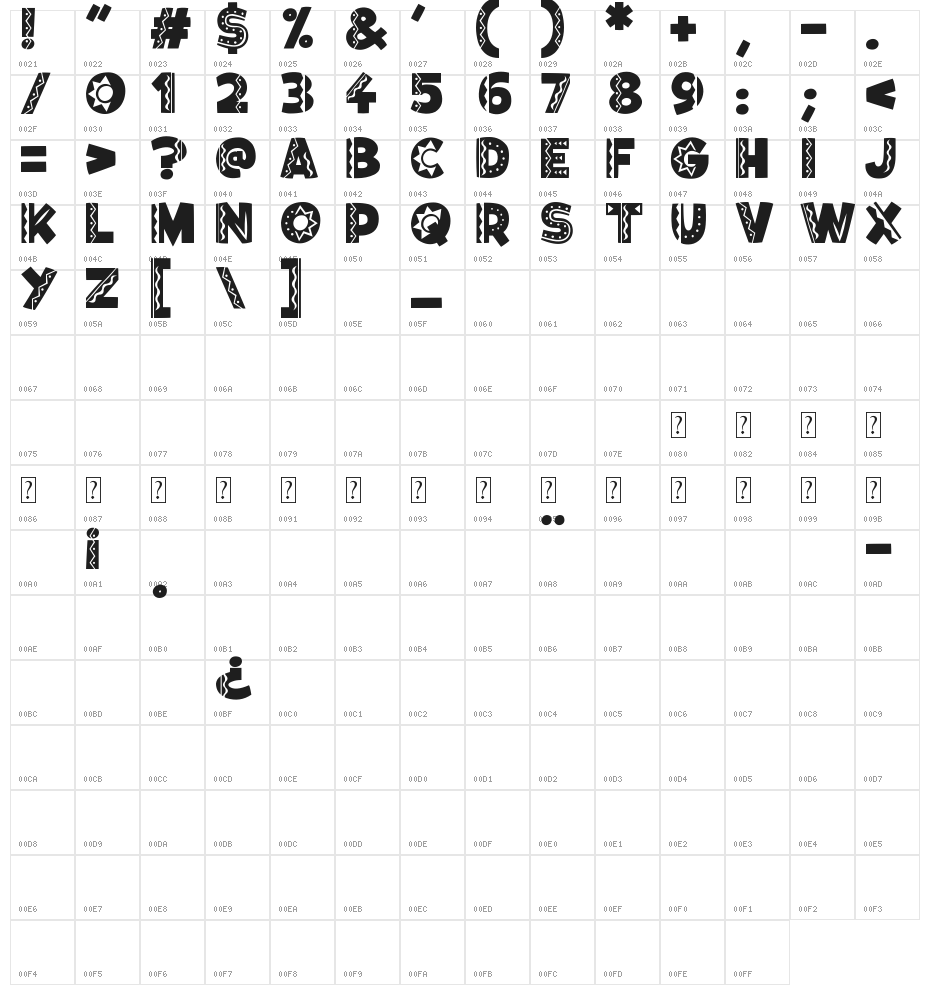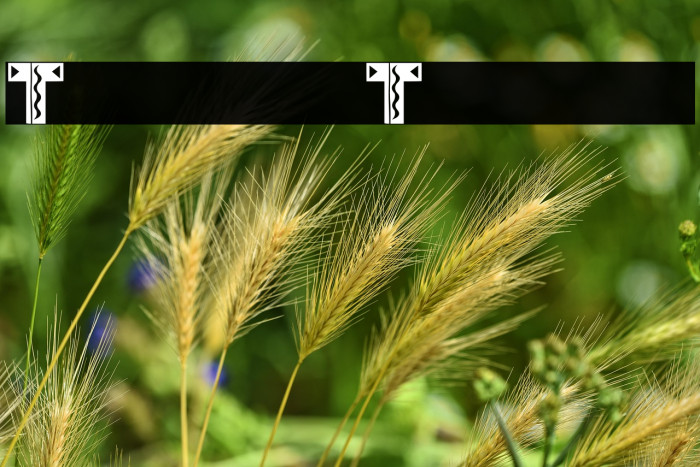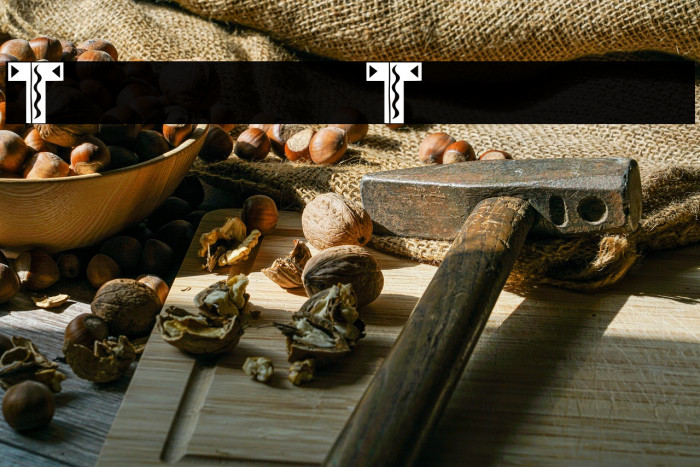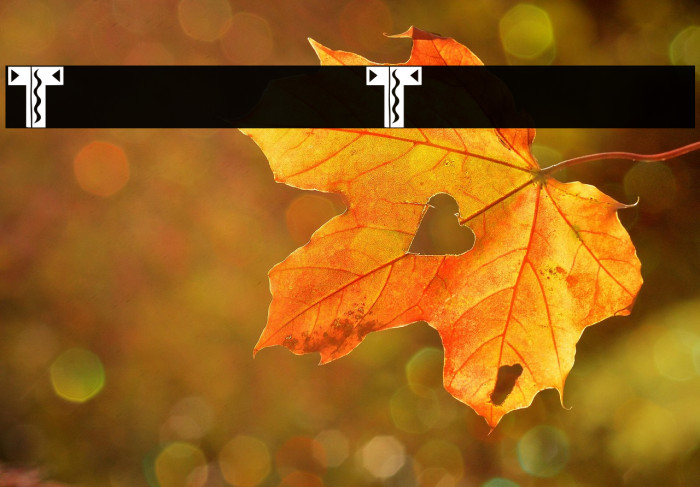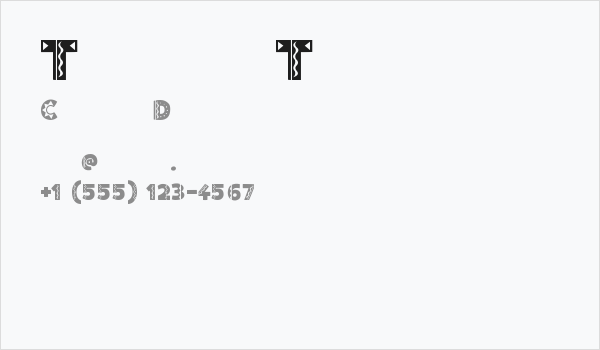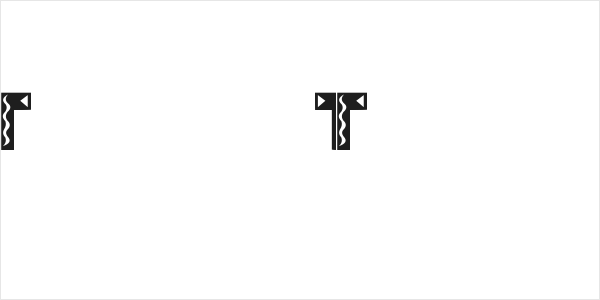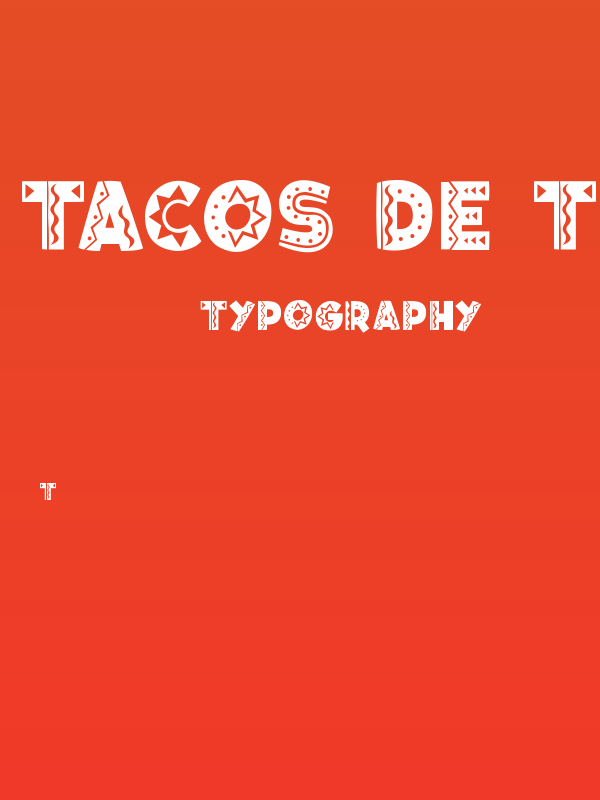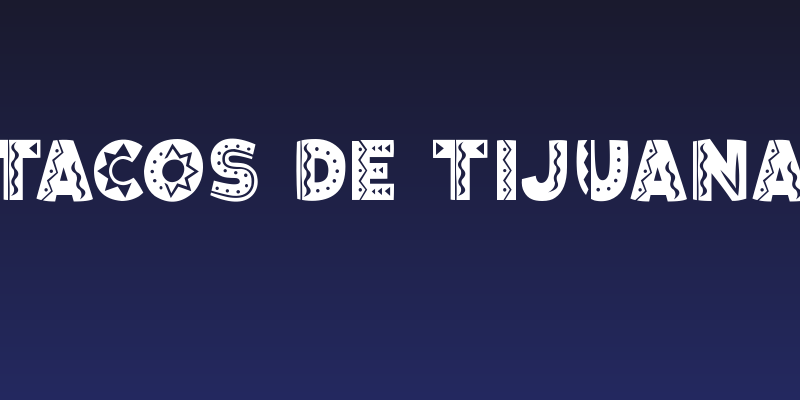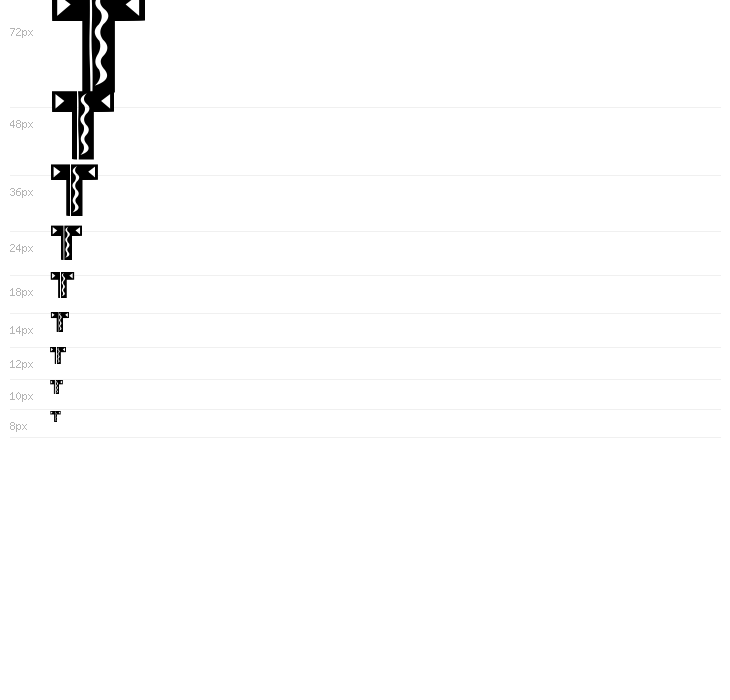
Tacos de Tijuana Font
Tacos de Tijuana Description
This font features a bold and decorative style with intricate patterns and shapes embedded within each character. The uppercase letters are particularly striking, with a mix of geometric and organic elements that create a lively and festive appearance. The numbers and special characters continue this theme, incorporating similar design motifs that enhance the overall aesthetic. The font's playful and artistic nature makes it ideal for projects that require a touch of creativity and flair.
| Proposed Projects | Ideal for event posters, festive invitations, branding for creative businesses, and any project that needs a lively and artistic touch. |